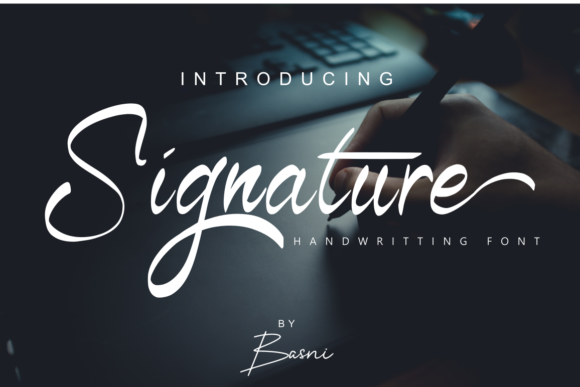
Signature is a beautiful and elegant handwritten font that exudes a sense of refinement and timelessness. With its delicate and flowing letterforms, this font adds a touch of sophistication to any design.
Signature is particularly well-suited for projects that require a personalized and luxurious touch. It shines on quotes, greeting cards, invitations, logos, and business cards, adding a sense of elegance and uniqueness. Its handwritten style gives it a human touch, making it feel more personal and intimate.
The font’s PUA encoding allows for easy access to a wide range of glyphs and swashes, giving you even more creative freedom to customize your designs. With the additional glyphs and swashes, you can further enhance the beauty of your typography and add decorative elements to make your designs truly standout.
Whether you’re designing for weddings, special events, or high-end branding, Signature brings a sense of refinement and sophistication. Its timeless appeal ensures that your designs will remain relevant and stylish for years to come.
When using Signature, consider pairing it with complementary fonts to create a harmonious and cohesive design. It can be paired with serif or sans-serif typefaces to create a contrast between elegance and simplicity, or combined with other script fonts for a more intricate and decorative look.
In conclusion, Signature is a ravishing and delicate handwritten font that adds a timeless and personalized touch to your designs. Its PUA encoding allows for easy access to a variety of glyphs and swashes, further enhancing its versatility. So whether you’re creating quotes, greeting cards, logos, or other designs, Signature will elevate your work and make it truly memorable.